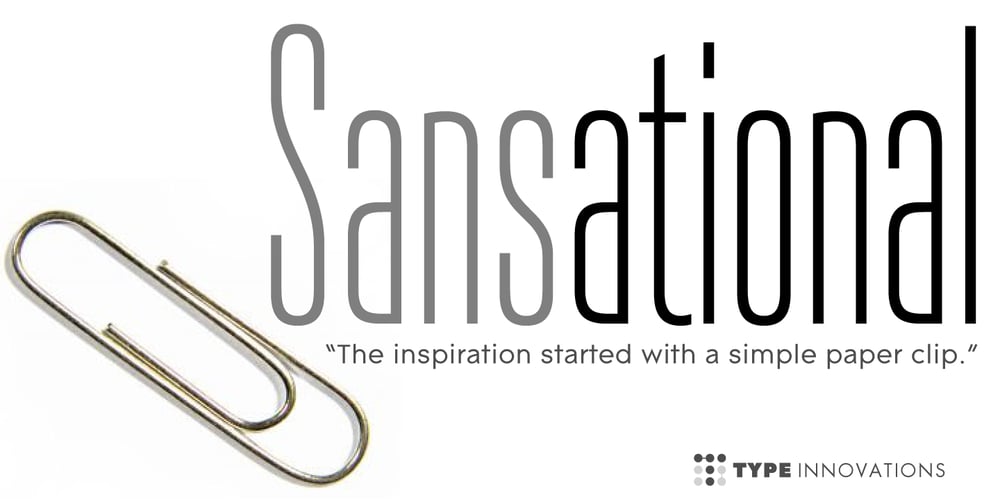
Sansational
Sansational font
Sansational Font Family was designed by Alex Kaczun and published by Type Innovations. Sansational contains 6 styles and family package options. “Sansational” is an original design by Alex Kaczun. The inspiration started with the shape of a “paper clip”. Simple and elegant. A condensed sans serif that’s, well… just sansational! It’s a delight to use and view. Great for advertising, large headlines, web applications, and well… just about anything. Works equally well in a broad range of text point sizes.